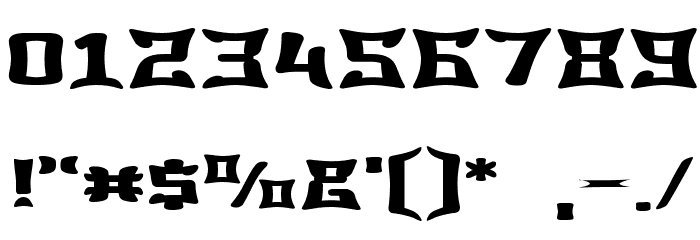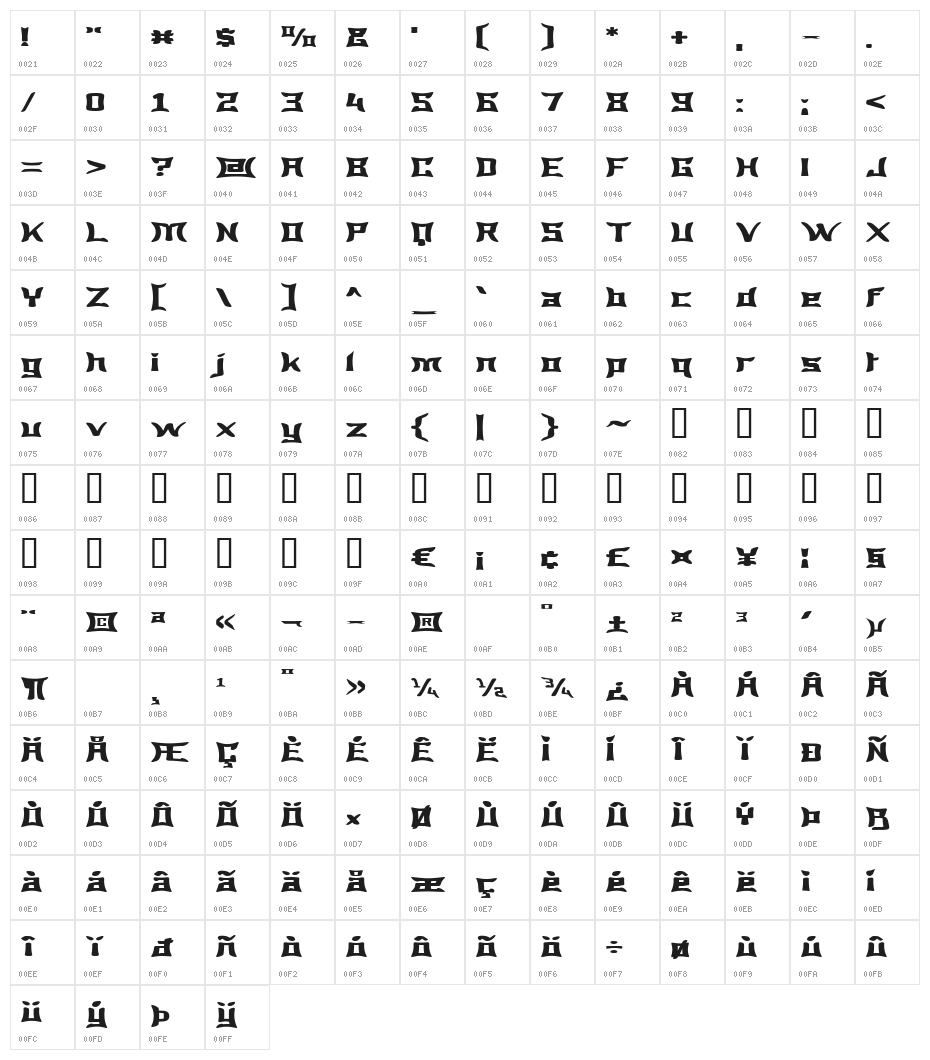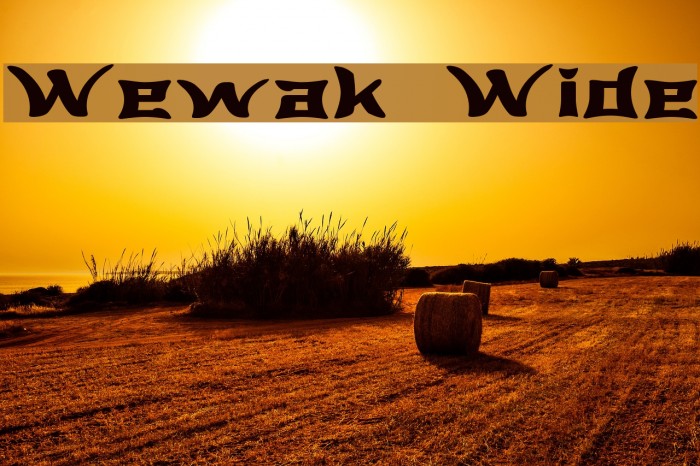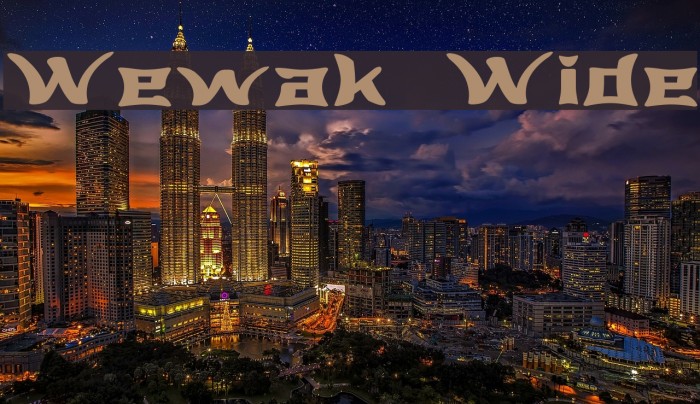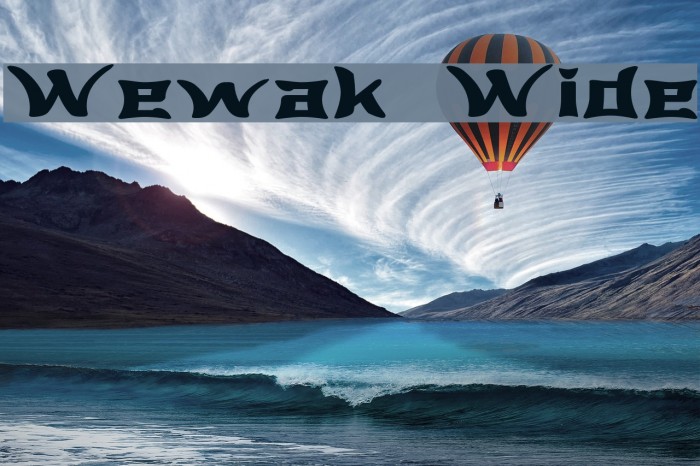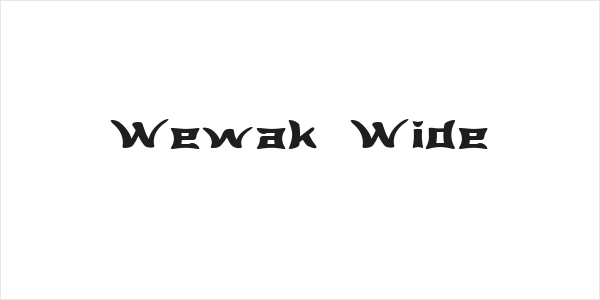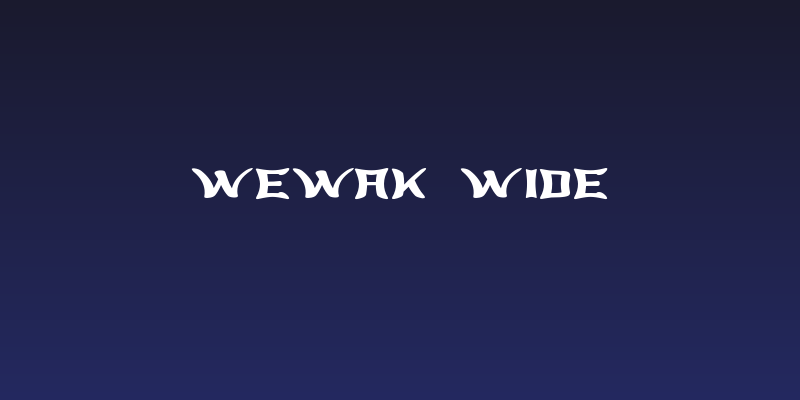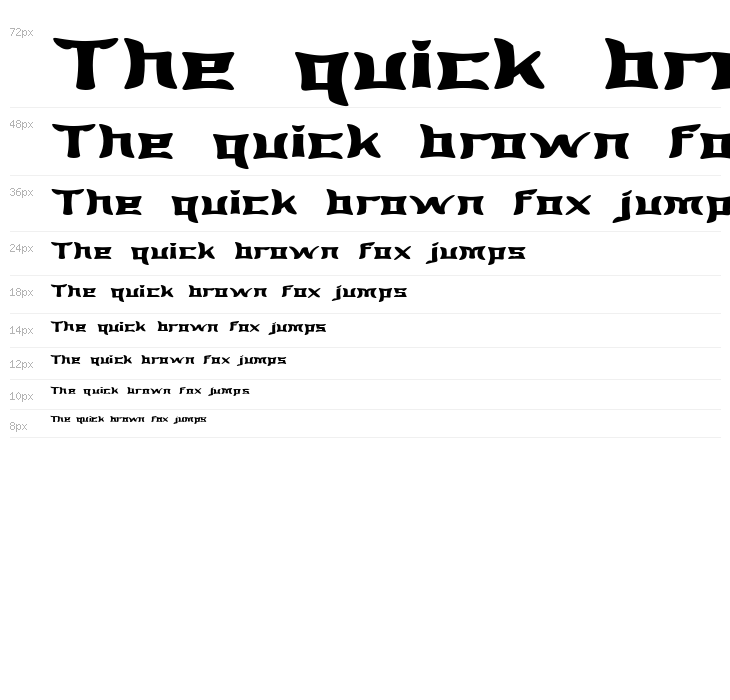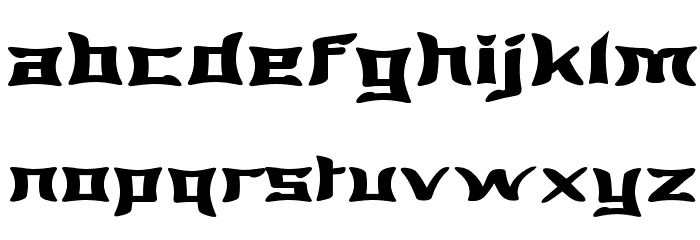
Wewak Wide Font
Wewak Wide Description
This font features a bold and dynamic design with sharp, angular edges and a distinct geometric style. The uppercase and lowercase letters maintain a consistent width, giving the font a uniform appearance. The numbers and special characters are crafted with the same attention to detail, ensuring a cohesive look across all glyphs. The font's unique style is reminiscent of a modern take on traditional blackletter, with a touch of futuristic flair. Its bold presence makes it ideal for impactful designs.